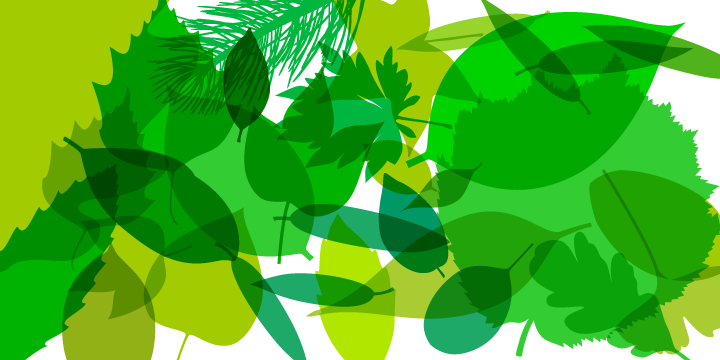
Fontfoliae™
Fontfoliae Samples and Legenda
Designed when: 2006
Contained in Category: Picture
Fontfoliae
Leaves from the most common trees with botanical names.